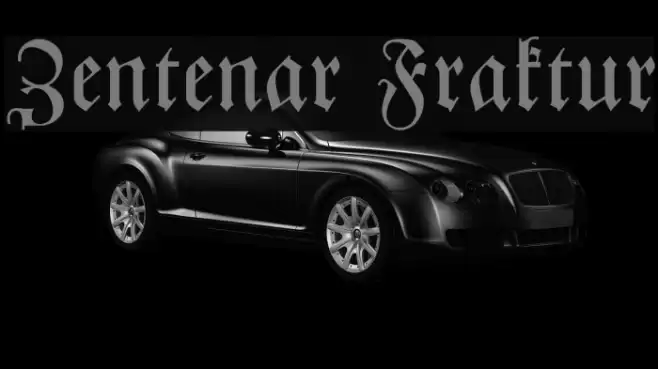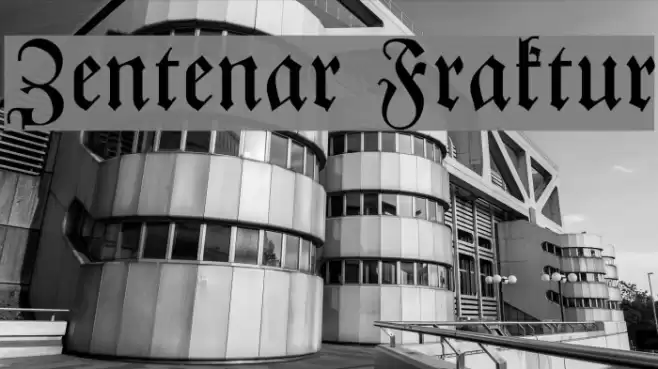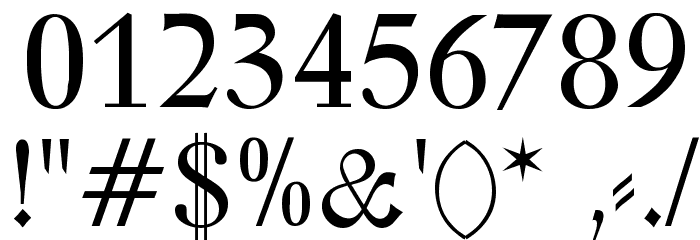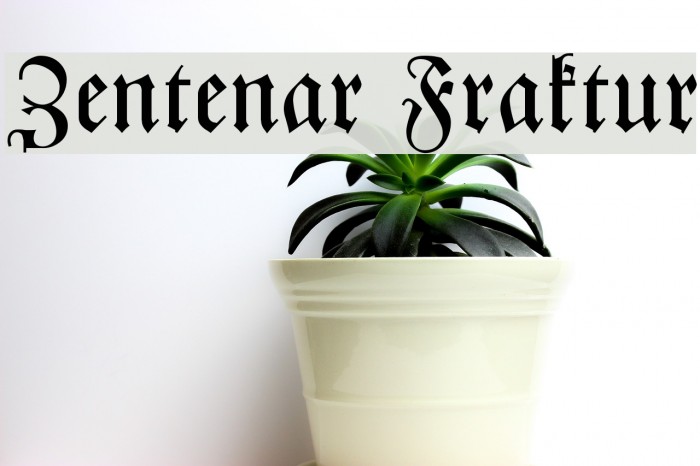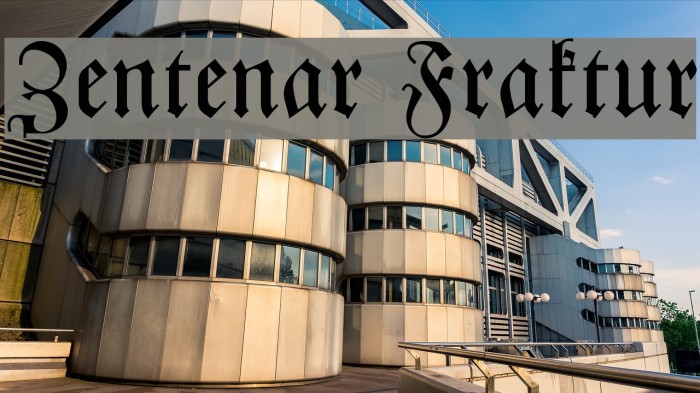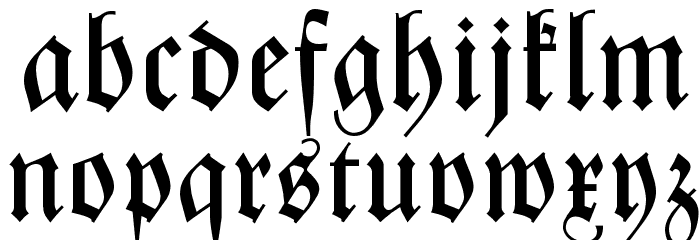
Zentenar Fraktur Font
Zentenar Fraktur Description
This font embodies the traditional and ornate characteristics of Blackletter typefaces, featuring intricate and elaborate strokes. The uppercase letters are highly decorative with sharp angles and flourishes, while the lowercase letters maintain a consistent style with a slightly more subdued ornamentation. The numerals are bold and distinct, complementing the overall aesthetic. Special characters are designed with a similar level of detail, enhancing the font's cohesive appearance. This font is ideal for projects that require a historical or medieval touch, offering a sense of grandeur and formality.
A traditional Blackletter font with intricate and ornate strokes, ideal for historical themes from Uncategorized fonts.
- Proposed Projects: Suitable for certificates, invitations, book covers, and branding that require a historical or medieval theme.
- Overall Style: Vintage